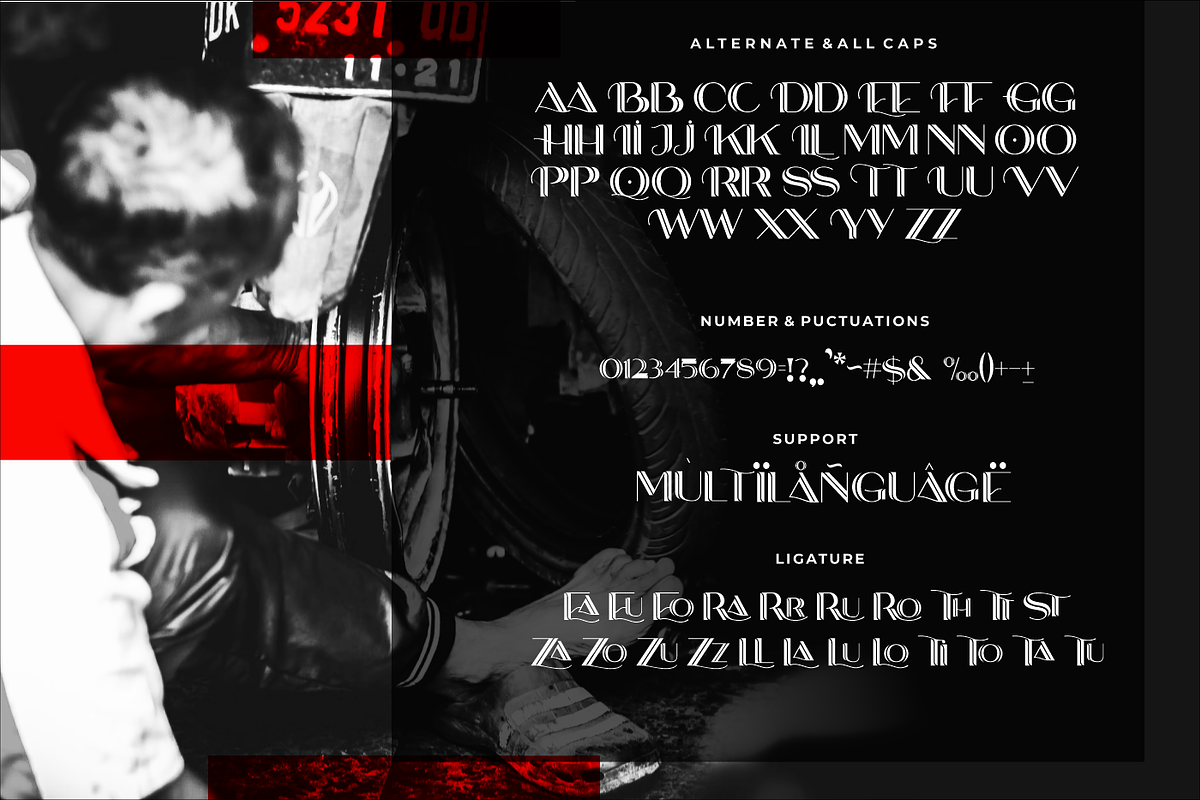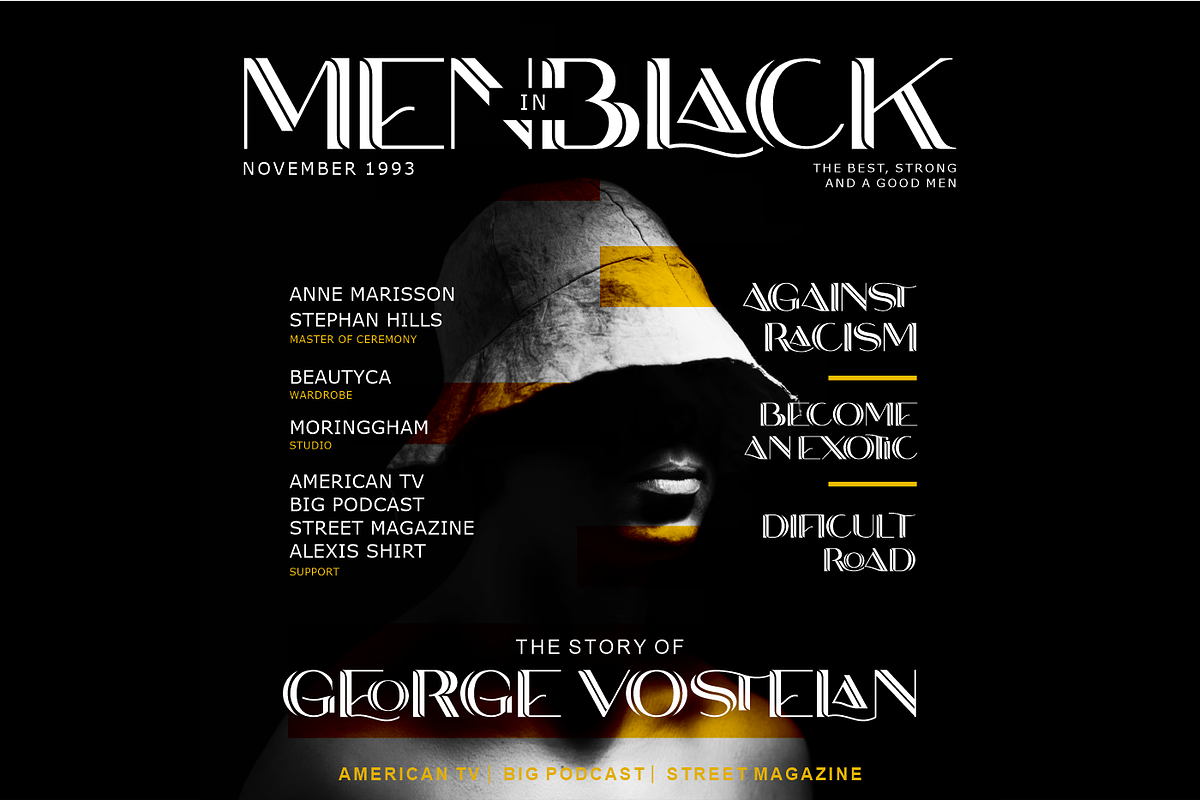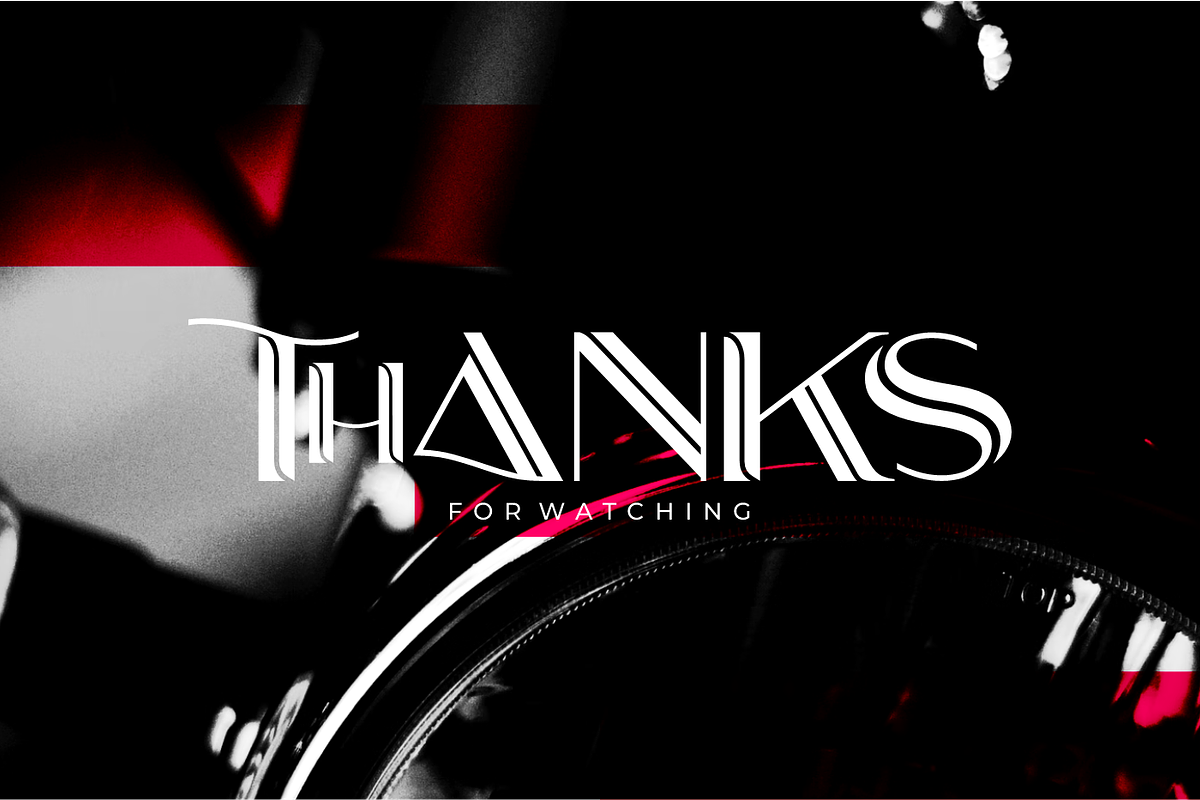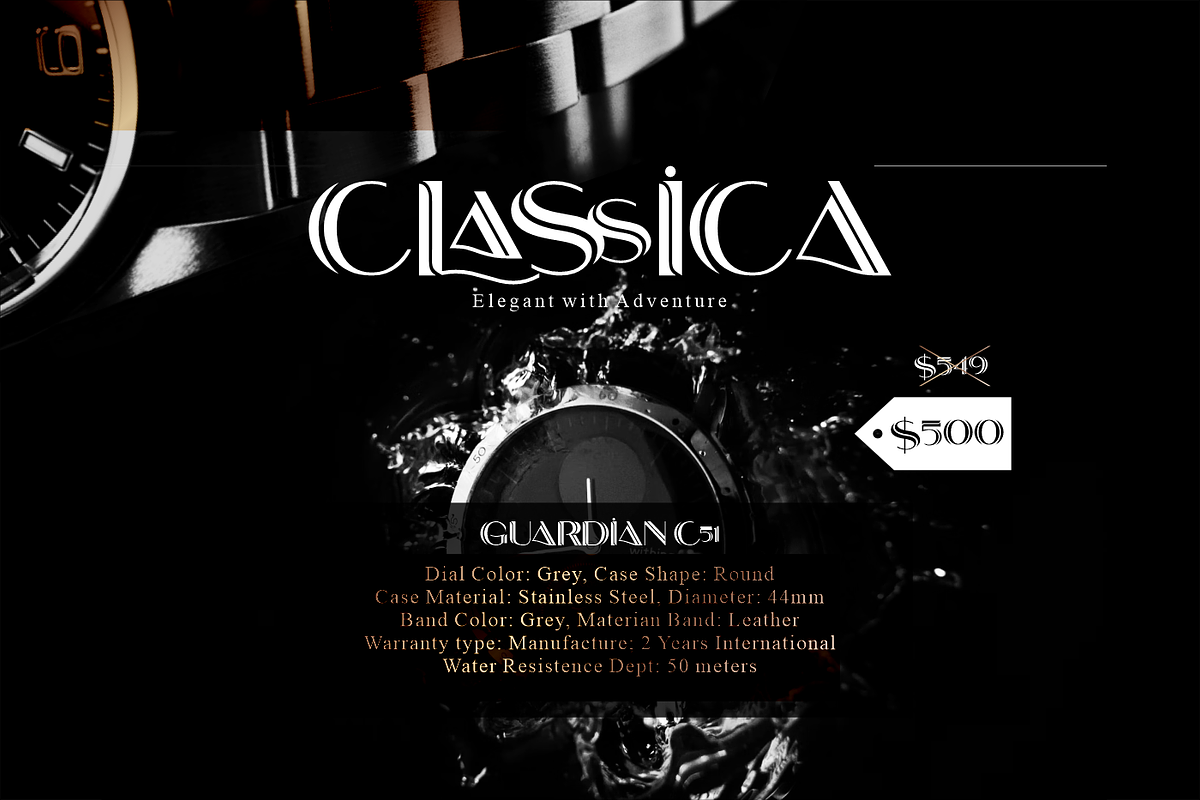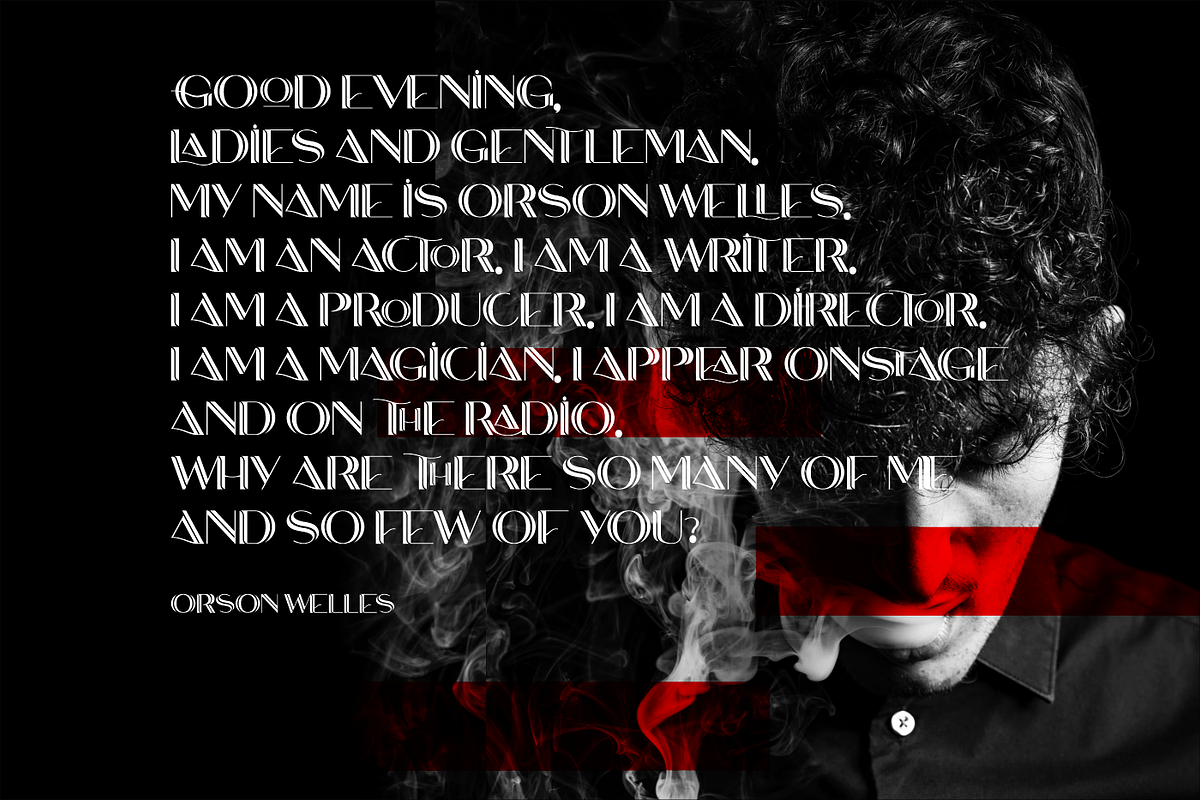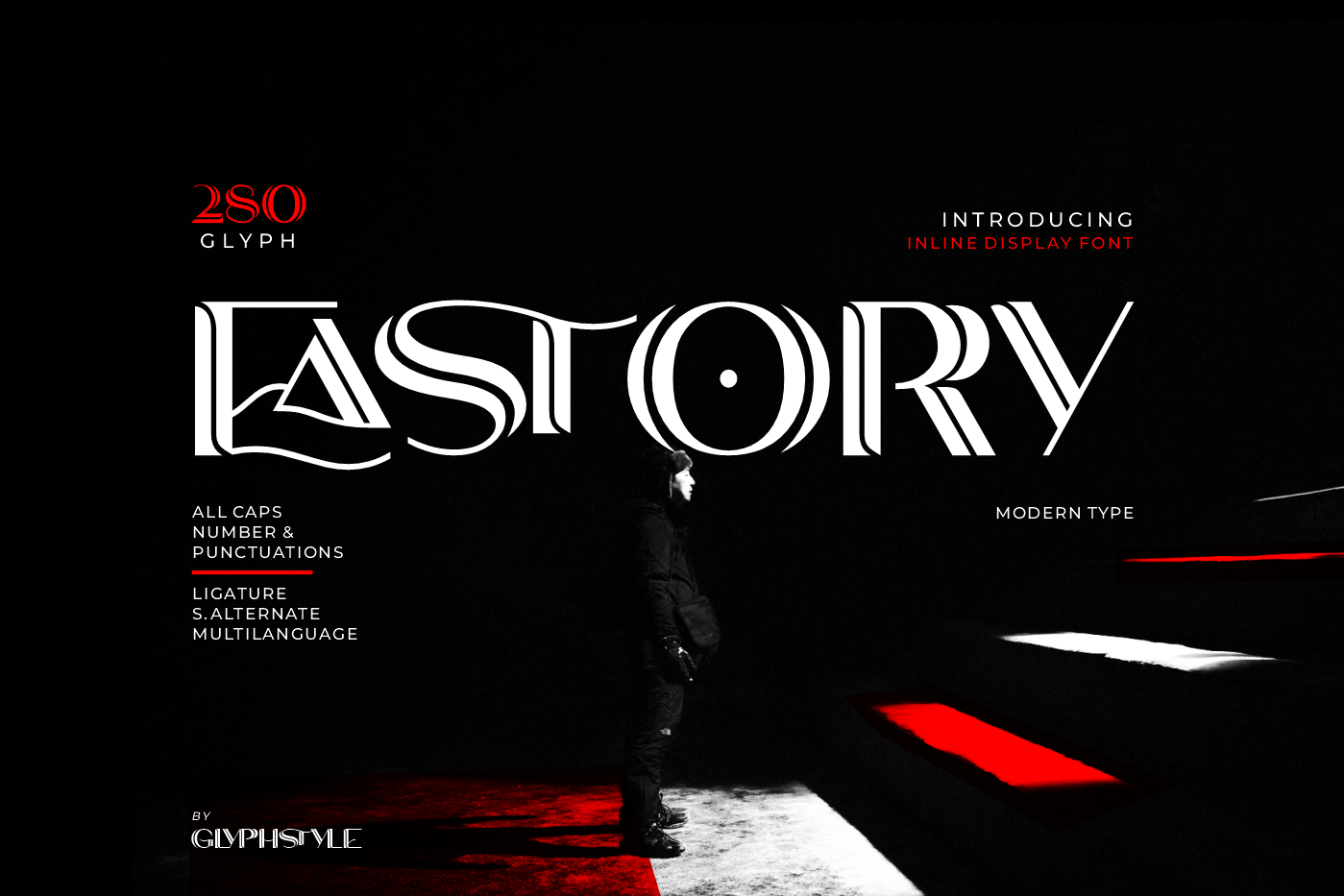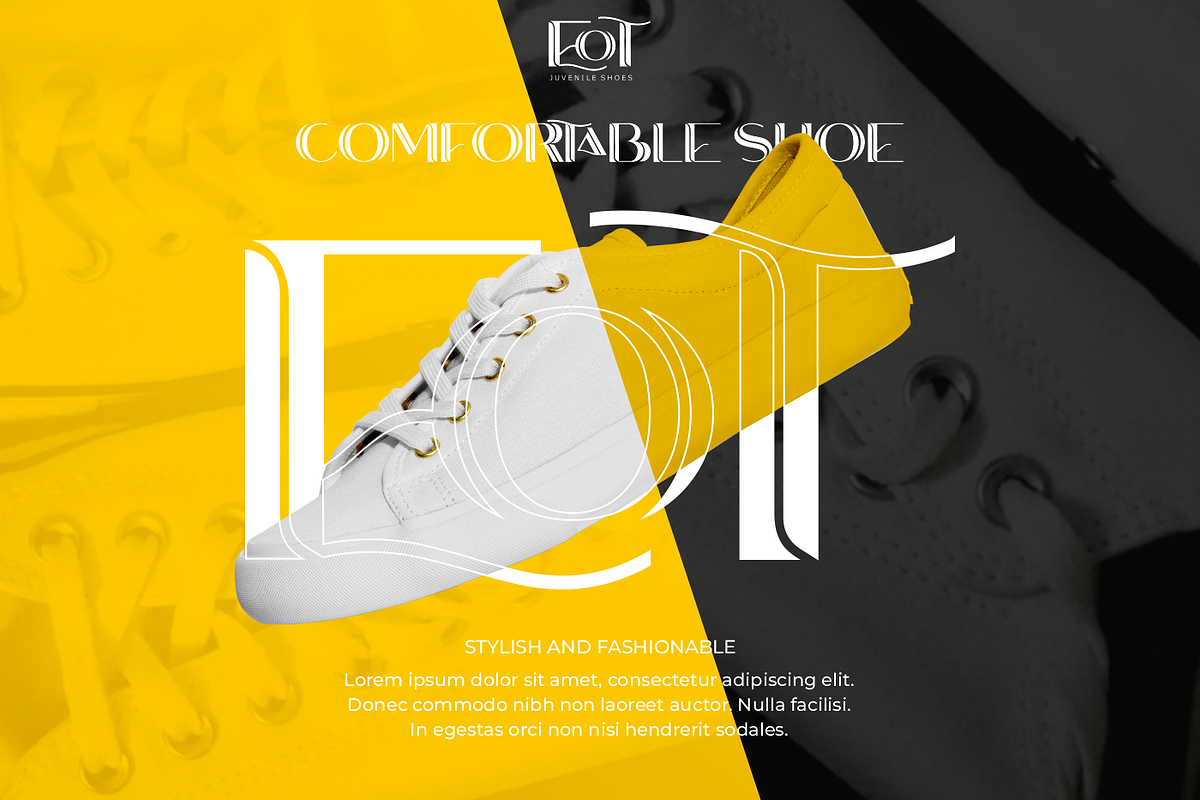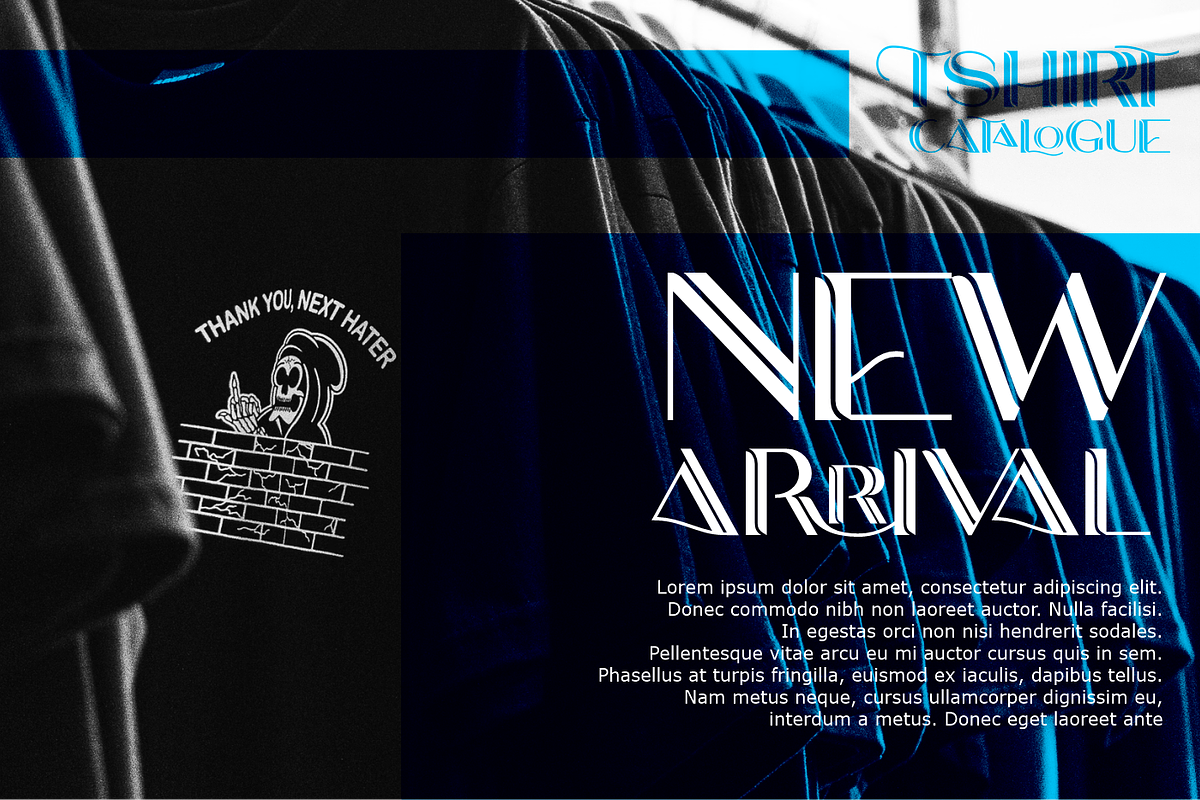
Eastory Inline Display Font
EASTORY is a display font, with an inline line, and a combination of thick and thin letters. With a bold shape and a combination of thin and thick lines to make it look beautiful, this bold font can also look elegant with a cursive ligature and stylistic.
EASTORY is perfect for branding projects, logos, wedding designs, social media posts, advertisements, product packaging, product designs, labels, photography, watermarks, invitations, stationery, and any project that requires a sense of sans serif decorative font.
- Font feature
All Caps Numerals & Punctuations, Ligature, alternate Multilanguage